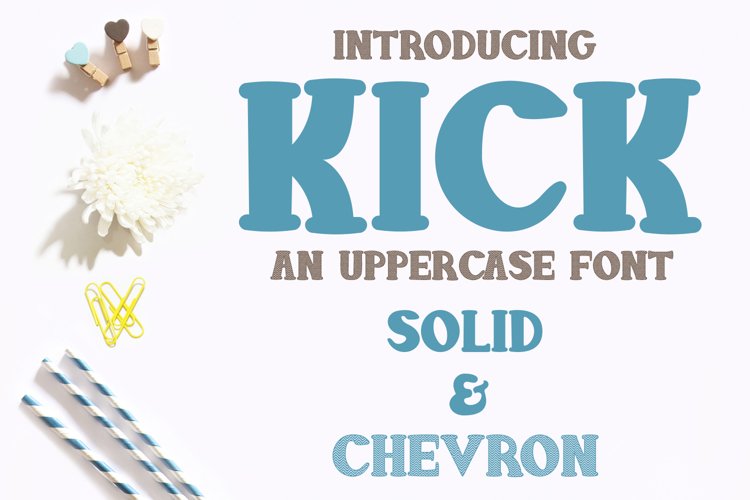
Introducing my new font Kick. All characters have been hand drawn by me (Vicky) and comes complete with Uppercase, Numbers, Punctuation and Language Support.
Please Note: This is an all CAPS font
Kick Font - Solid
Kick Font - Chevron (punctuation is not Chevron and is the same as the punctuation in the Solid font)The Chevron font is primarily designed to use as a single letter monogram.